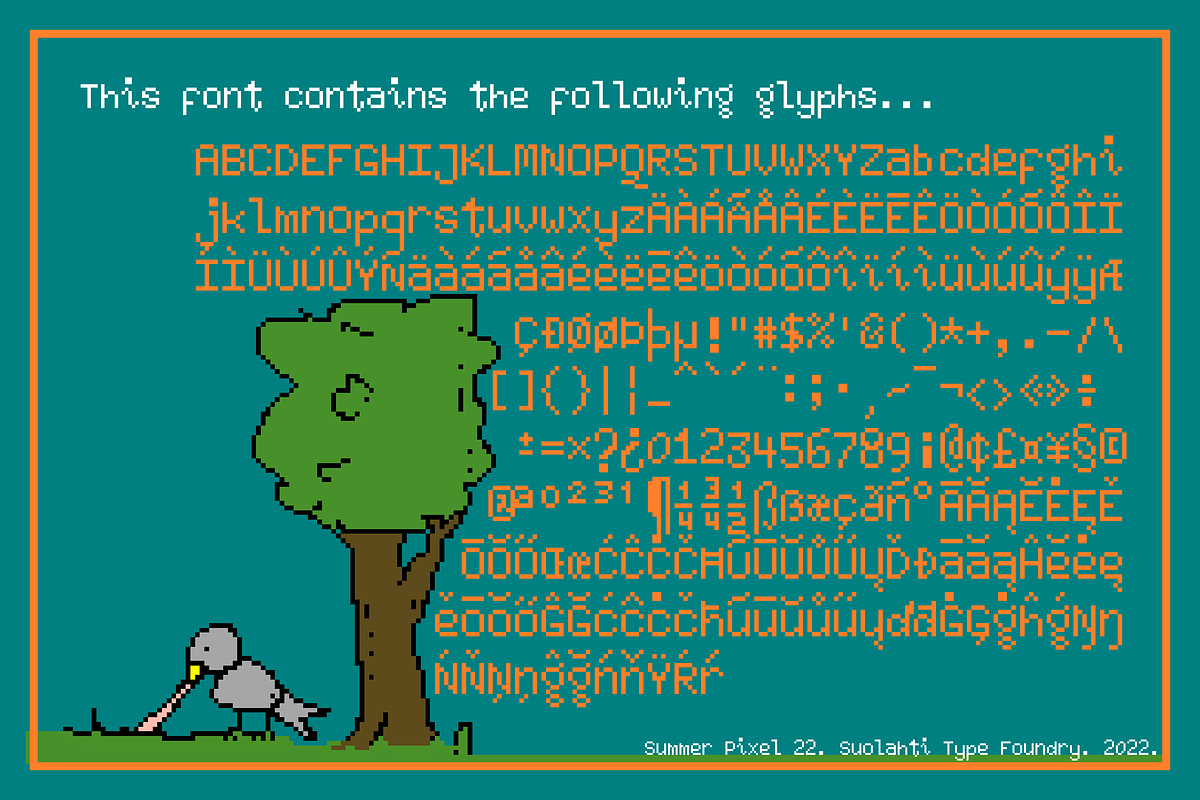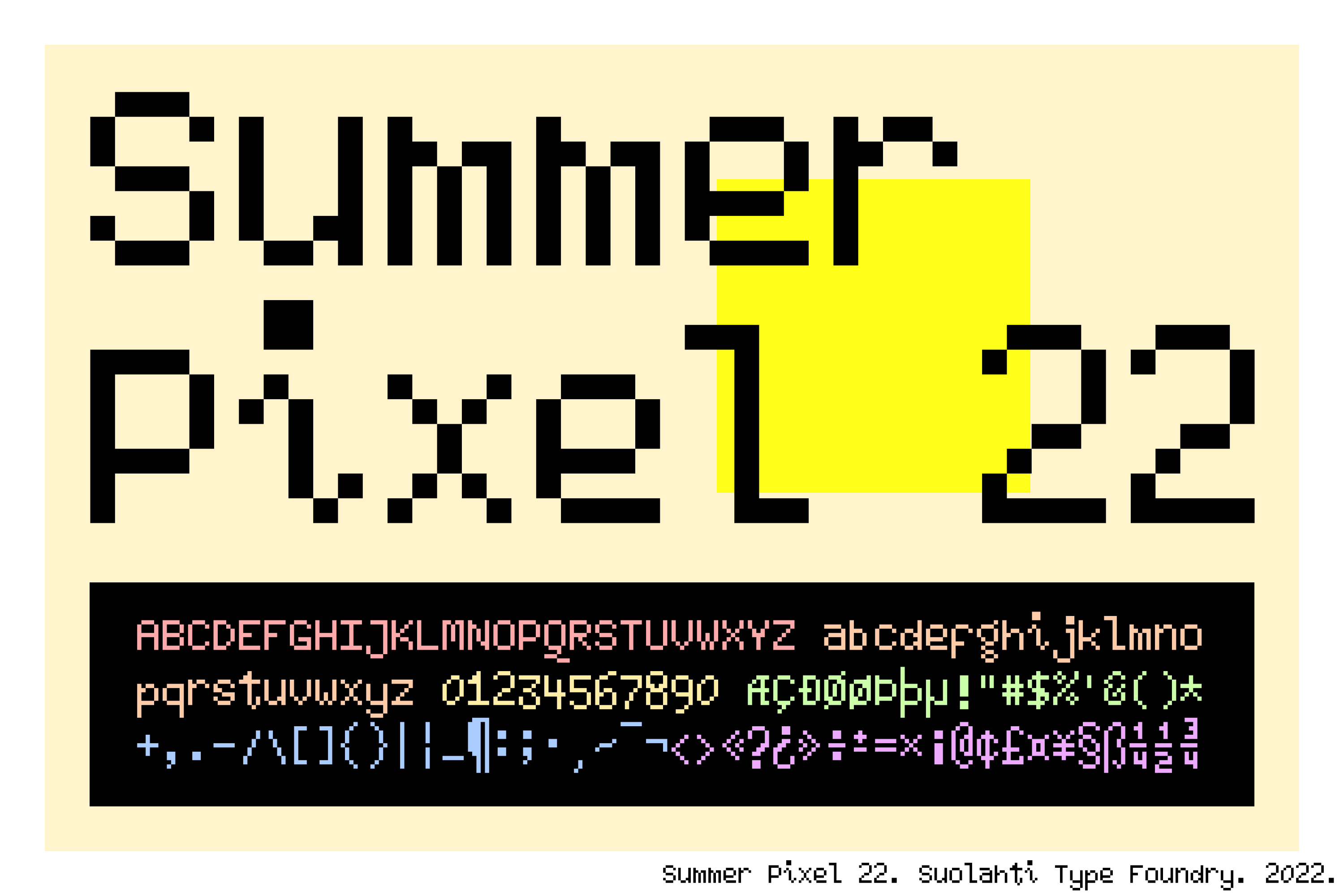
Summer Pixel 22 - Pixel Font
I wanted to create a pixel font with a lively character. Oftentimes pixel fonts are very stiff, constructions rather than creatures. There's a tendency to draw all the characters "perfectly", i.e., favouring forms that are low resolution approximations of high definition forms. In so doing there's nothing left of the original charm, because at very low resolution every reduction looks the same.
I think I managed to create a very warmhearted font. I hope you like it too!